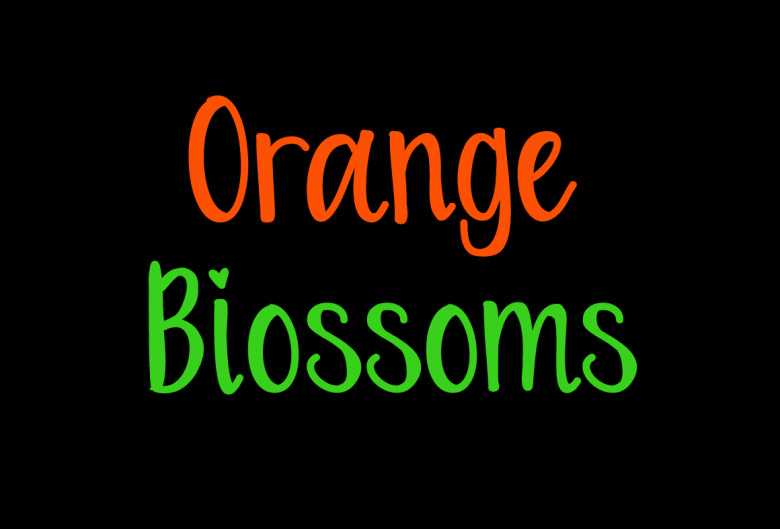
Orange Blossoms Font
‘Orange Blossoms’ is a super fun font that is hand lettered by me. The characteristics of this font give off a unique hand lettered feel that will make your work enticing to view. Great for crafting and looks awesome on T-shirts, mugs, cards and so much more!